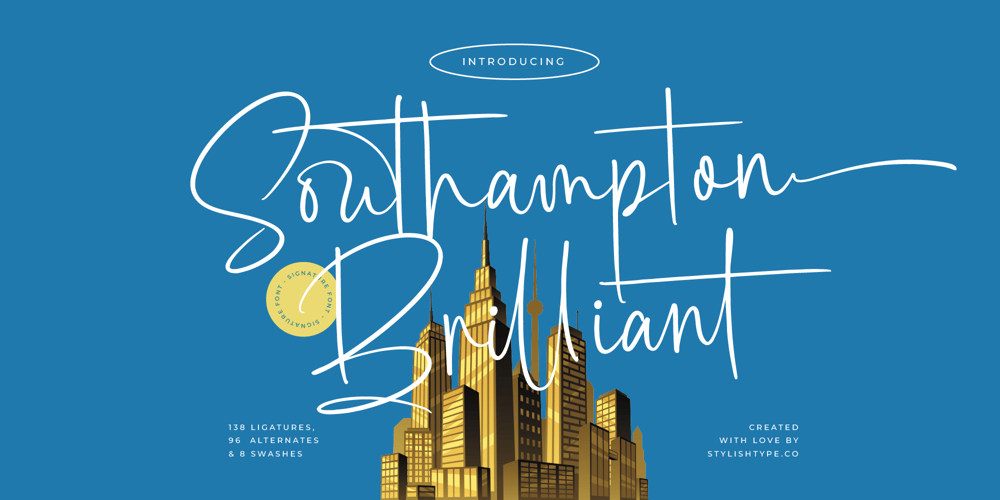
Southampton Brilliant Font Family was designed by Heru Utama Putra and published by Stylishtype Studio. Southampton Brilliant contains 2 styles and family package options. Southampton Brilliant – Stylish Signature Font , from Stylishtype , Suitable for any projects such as: logos, branding projects, homeware designs, product packaging, mugs, quotes, posters, shopping bags, t-shirts, book covers, name card, invitation cards, greeting cards, label, photography, watermark, special events, and all your other luxury and beautiful projects that need a Luxury Script taste.